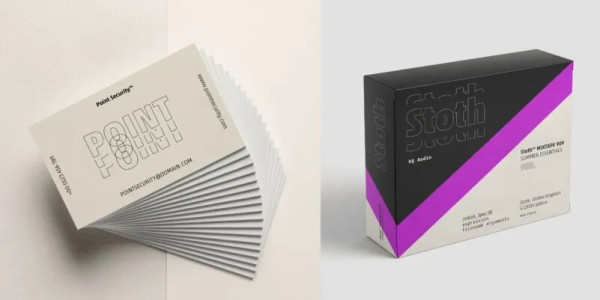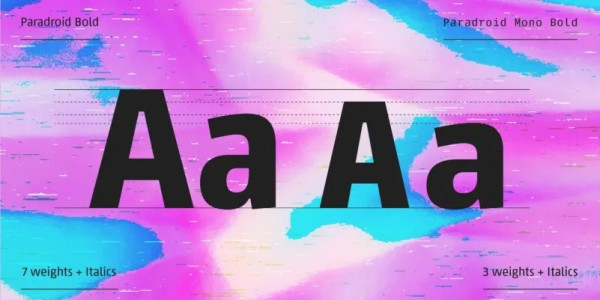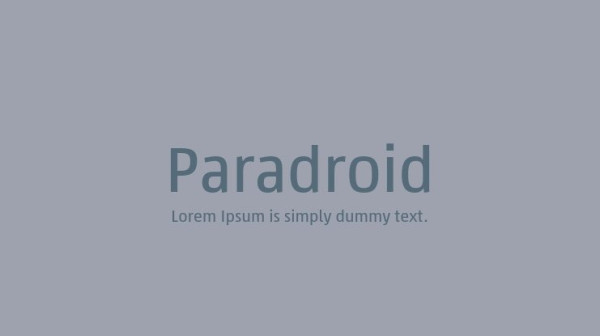
Paradroid Font – A pragmatic sans-serif which sits in the centre on the grotesque to geometric style spectrum. Equal measures of both letterforms create a neutral type family that is modern, functional, and easy to read without being too distracting. Details include seven proportionally spaced weights and four monospaced weights, both with matching italics, 750 characters with an alternative lowercase a and g, twelve variations of numerals with stylistic zero’s, Opentype features inferiors, superiors, fractions, case-sensitive punctuation, and language support covering Western, South and Central Europe. Paradroid Font
Paradroid Font
| Designer Name: | Jonathan Hill |